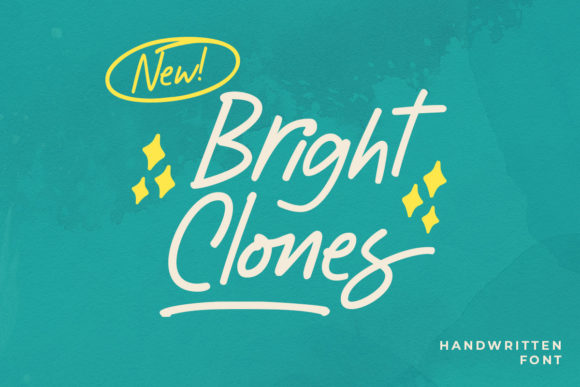
Sneak into the enchanting world of Bright Clones Font and let your creativity soar! This winsome handwritten font, meticulously crafted by the renowned letterhend, captivates hearts with its charming doodles and whimsical characters.
Bright Clones is more than just a font; it's an open invitation to transform your designs into magical realms. Let your imagination run wild as you create invitations that twinkle with fairy dust, greeting cards that bloom with love, and social media posts that dance with joy. Unleash your inner child and sprinkle a touch of delightful mischief into your branding, packaging, and digital projects.
With Bright Clones at your fingertips, simplicity transforms into enchantment. Its flowing script dances across the page, carrying your words with grace and elegance. The adorable doodle elements, like playful hearts and delicate stars, add a touch of whimsy and wonder, making your designs come alive with personality.
Create personalized gifts that warm hearts and leave lasting impressions. Turn ordinary greeting cards into extraordinary keepsakes by adding a handwritten touch with Bright Clones. Design enchanting logos that capture the essence of your brand, making it stand out in a sea of sameness. The possibilities are endless, limited only by your imagination.
Join the creative revolution and embrace Bright Clones Font. Its enchanting charm will captivate your audience, leaving them spellbound by your designs. Let your imagination take flight and witness the transformation of ordinary into extraordinary, one stroke at a time.